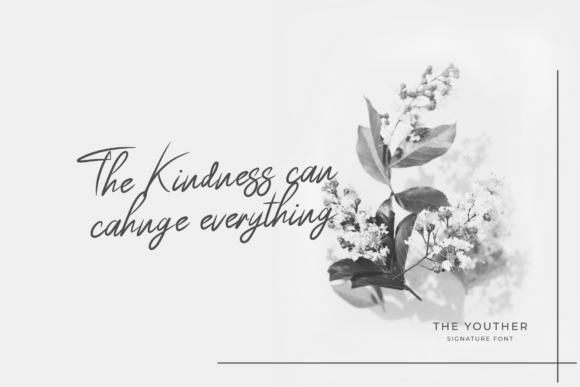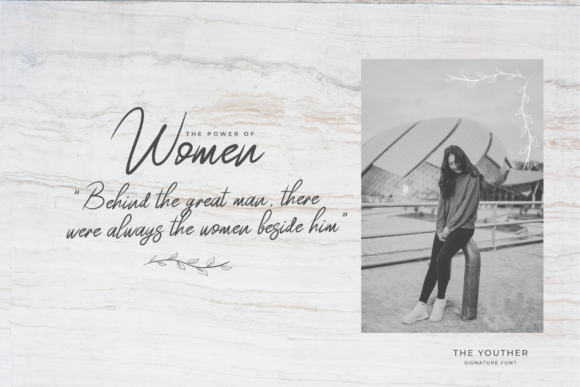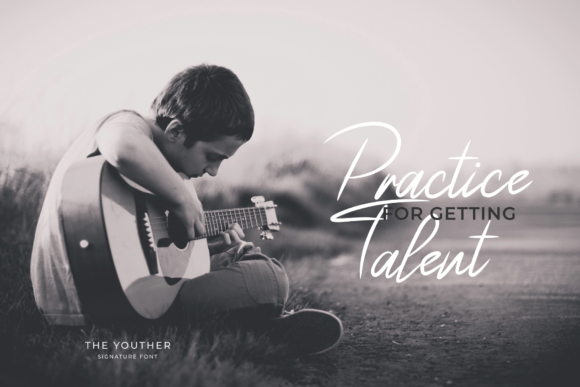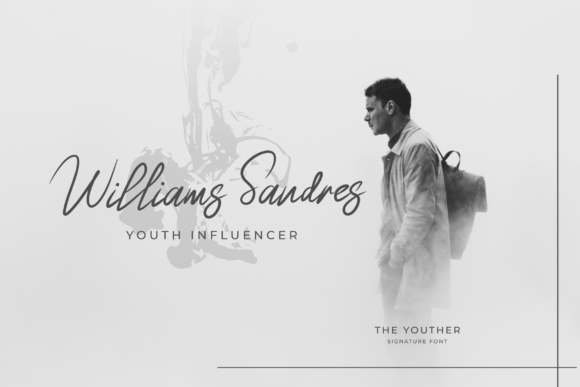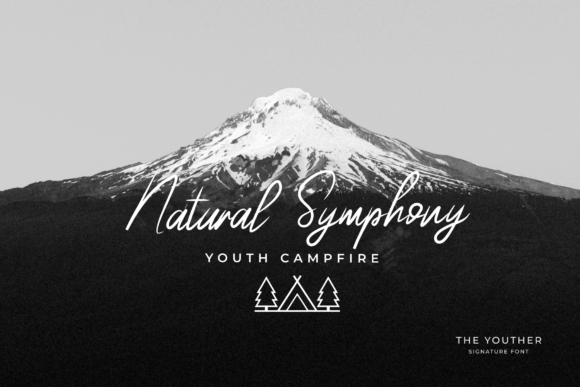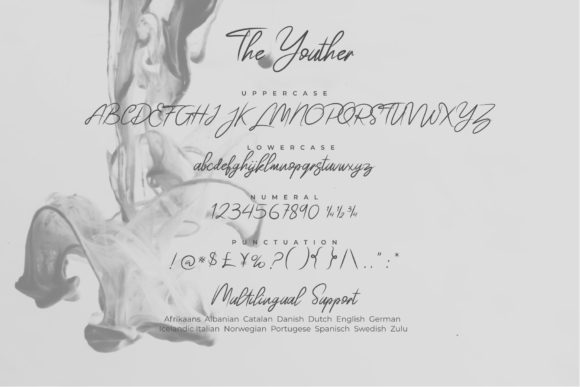
HomeScript FontsThe Youther Font Script Fonts The Youther Font FacebookXPinterestWhatsApp The Youther Font Poster 2 The Youther Font Poster 3 The Youther Font Poster 4 The Youther Font Poster 5 The Youther Font Poster 6 The Youther Font Poster 7 About The Youther Font The Youther is an amazing signature font. It was made with natural stroke lines which gives it an elegant touch. DOWNLOAD ON CREATIVE FABRICAThis font is sold and delivered by Creative Fabrica. Font Canyon may earn a commission if you buy through this link. People also explored Just Call Me Font Sagitha Font Anabellyn Font Gongbar Font With Story Font Family Font Cute Diana Font Apirak Font Maroon Bella Canvas 3001 T Shirt Mockup 269 0 TagsThe Youther Font Previous articleGreenlight Script FontNext articleMarykate Font LEAVE A REPLY Cancel reply Comment: Please enter your comment! Name:* Please enter your name here Email:* You have entered an incorrect email address! Please enter your email address here Website: Save my name, email, and website in this browser for the next time I comment. Personal Use Free Jabirah Personal Use Free Read more about this font A New Nattyla Personal Use Free Read more about this font Vembazax Rm Personal Use Free Read more about this font Dolce Vita Personal Use Free Read more about this font BLOG Free Fonts Risk: Why Free Fonts Can Be Dangerous for Designers Free Fonts Risk: Why Free Fonts Can Be Dangerous for Designers Using free fonts is a common practice in web and graphic design. However, the... Modern Sans-Serif Fonts That Brands Love in 2025 Best Fonts for YouTube Videos: Make Your Thumbnails Stand Out Exploring Font Trends